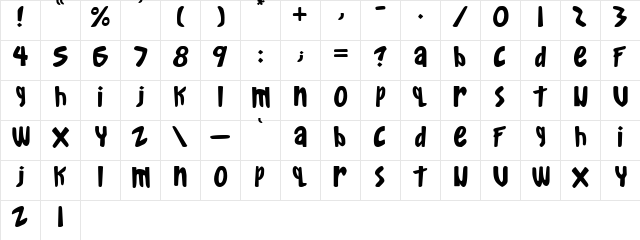
Gkreator Inside Beta1 Regular
Design Context for Gkreator Inside Beta1 Typeface
Gkreator Inside Beta1 is a composed and adaptable typeface that performs quietly and consistently across a wide range of design contexts.